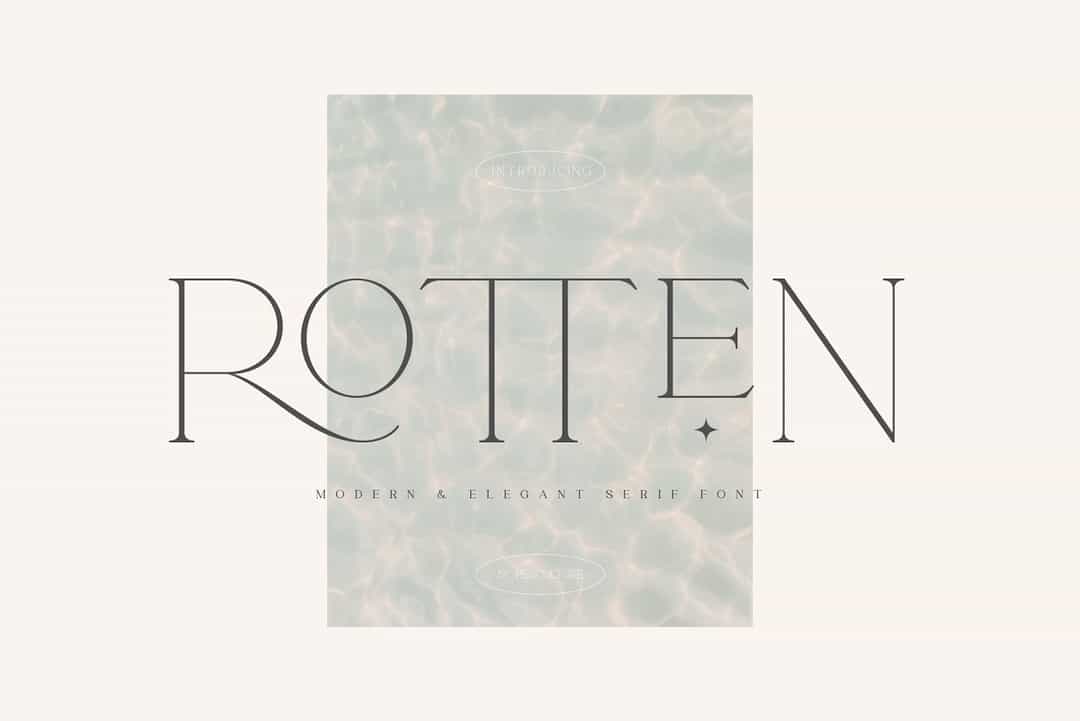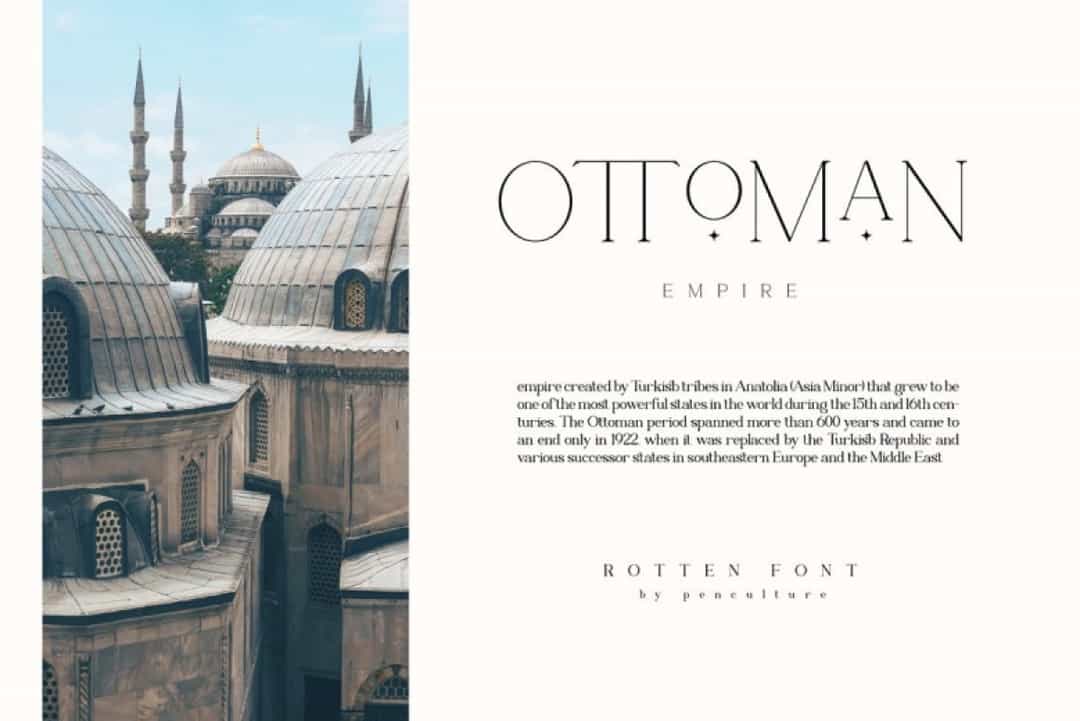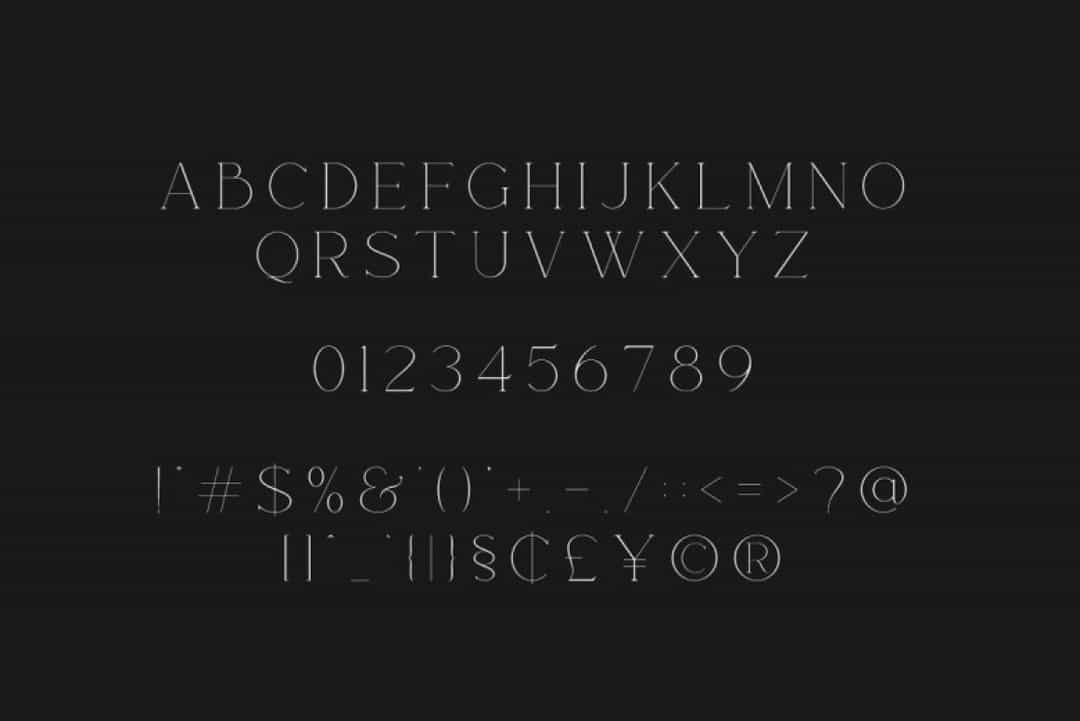
Rotten is an attractive serif font designed with modernity in mind. With its clean lines, simple structure and elegant features, this typeface makes an excellent choice for branding purposes in posters and logos alike.